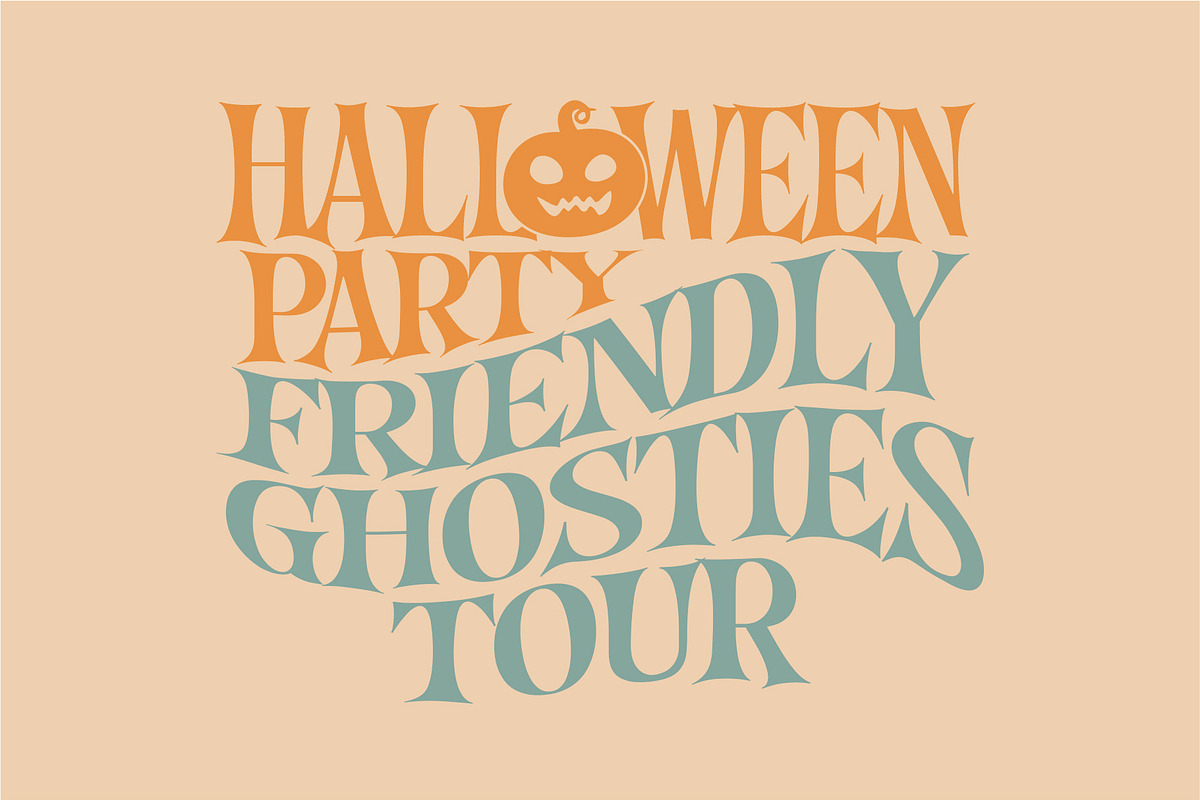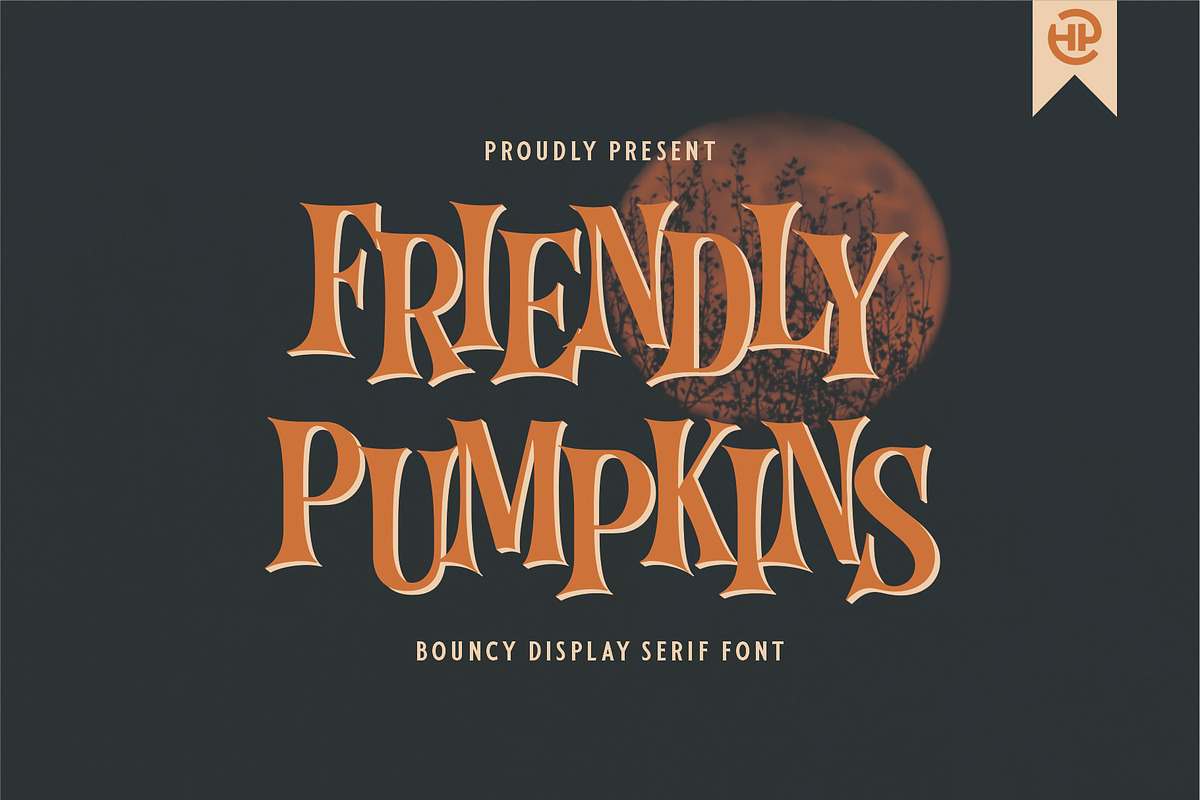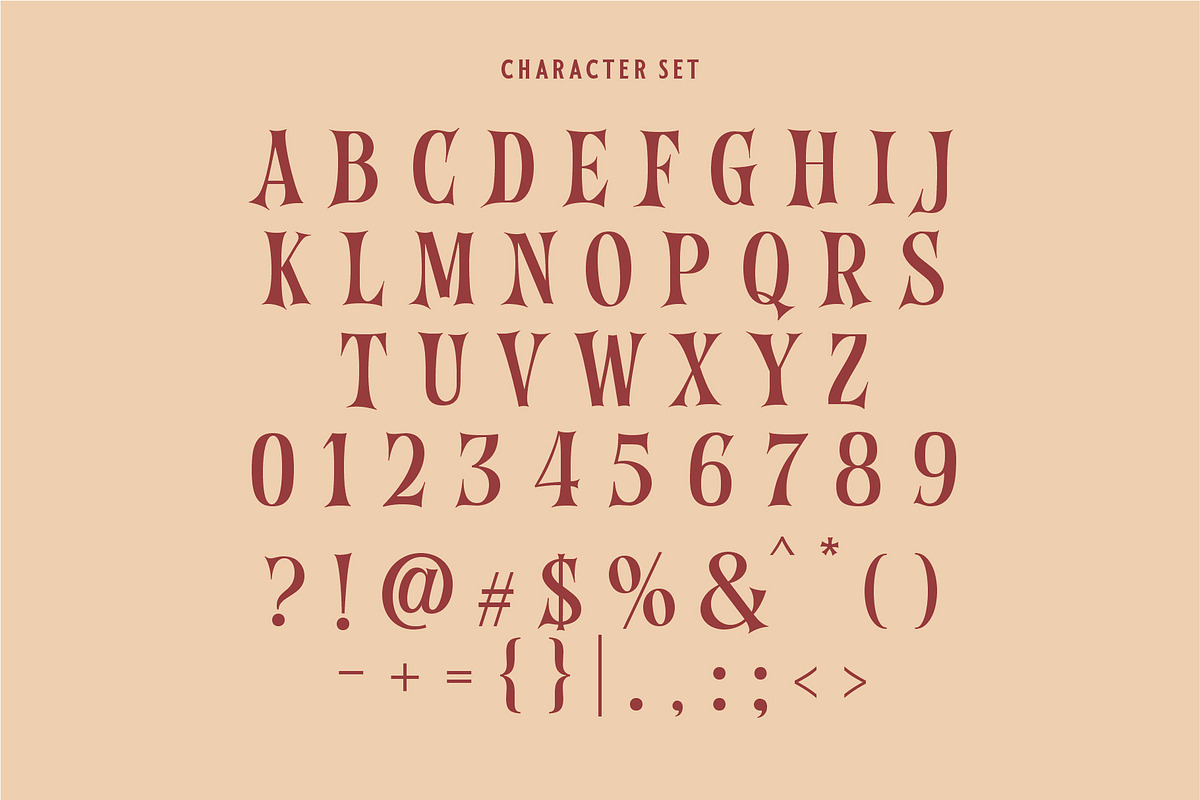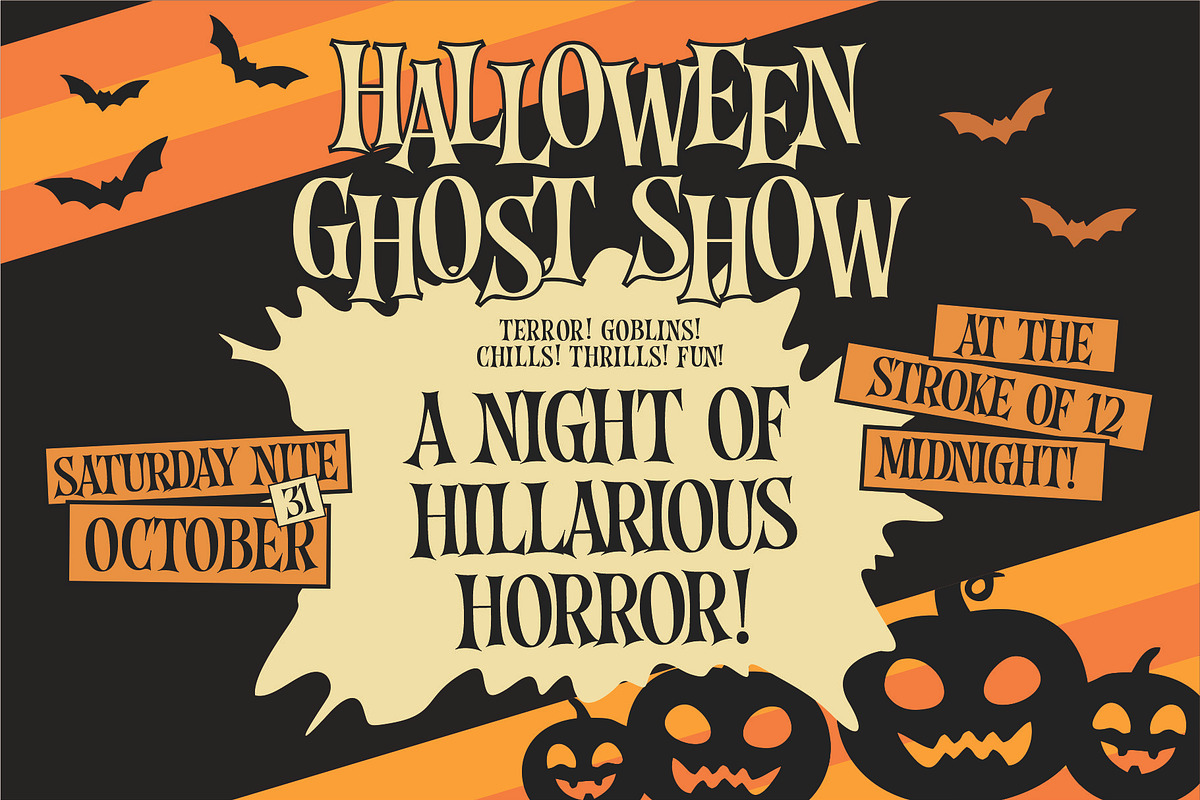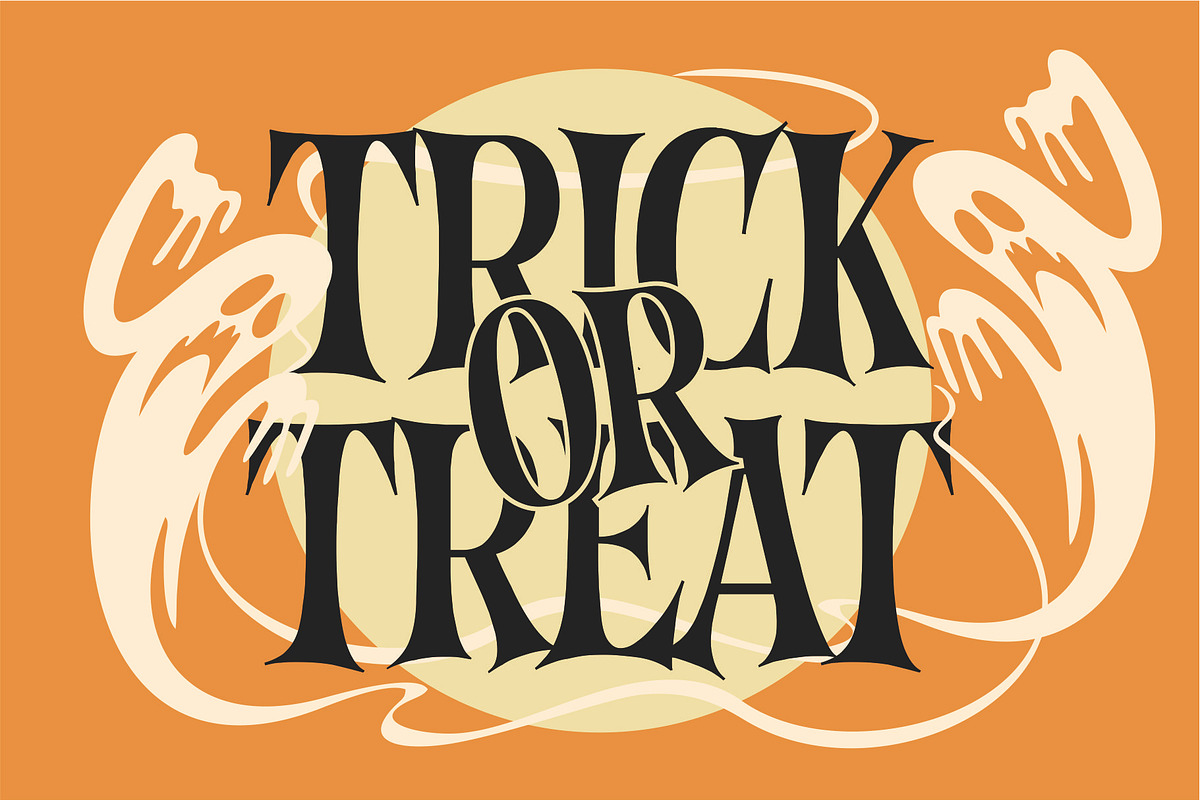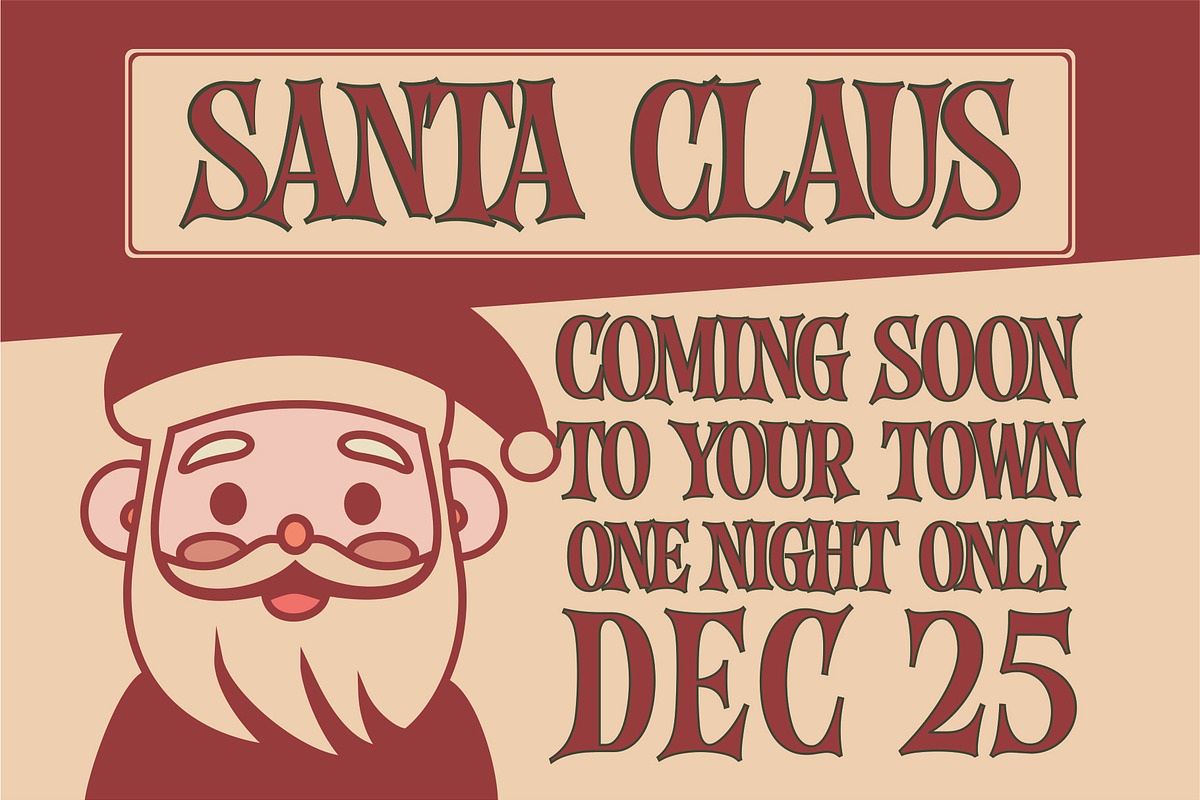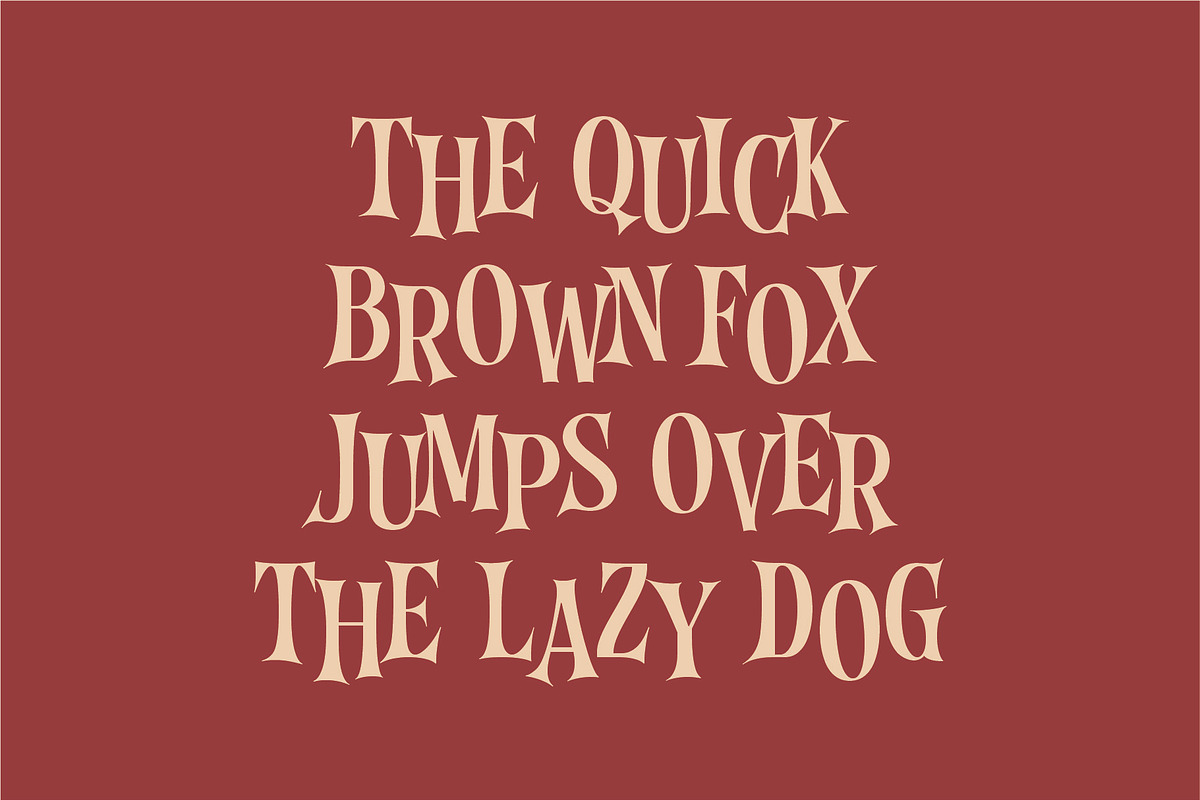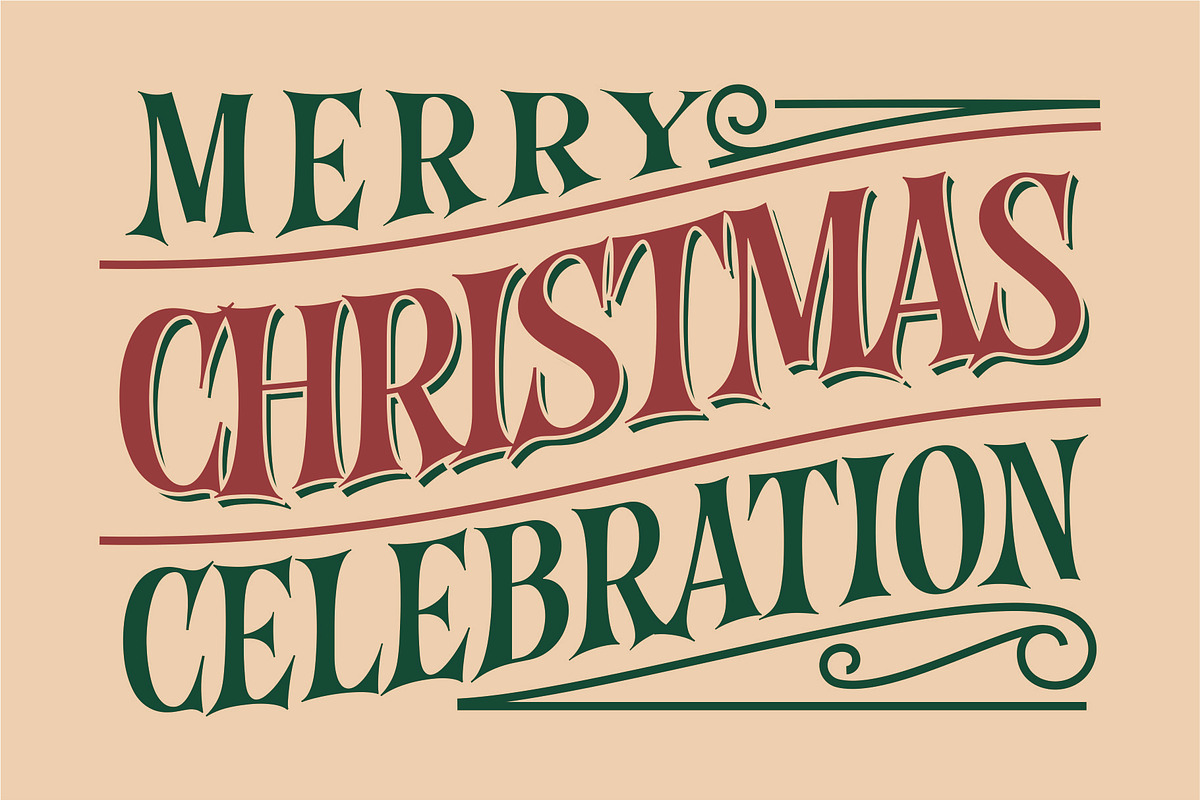
FRIENDLY PUMPKINS
Friendly Pumpkins is a condensed serif with a horror, scary, creepy and fun vibes at the same time. This authentic typeface is perfect for film posters, especially thriller & horror films and is suitable for Halloween and Christmas poster designs. Also, this font supports multi languages. Let's create your next Halloween and Christmas poster with this font!
For bounce results, we recommend combining uppercase and alternates.